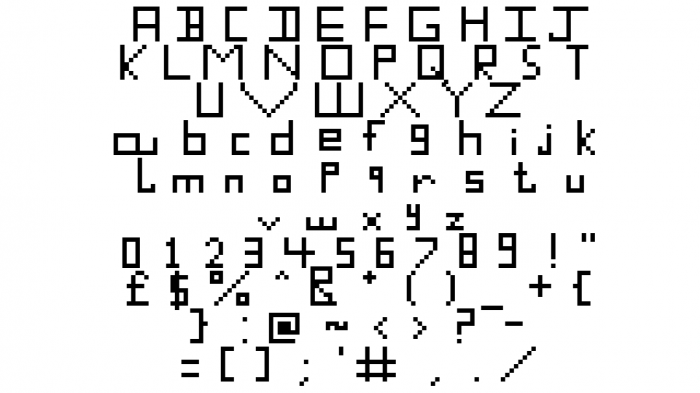
• Ever heard of square fonts? Now you can! I used just square blocks. It's like School Rounded, but with square bricks. I did try to make Outline, but it failed.
I like these pixel letters
I really like this font 100 percent ? looks like you worked really hard on it
I did actually work hard on it.
I used this s a work today and every thought it was a good font ,will use it again
Do you want me to add any characters or no characters?
I think you have done lots already and it is finished ☺️Thankyou for making it
I've done ABCDEFGHIJKLMNOPQRSTUVWXYZabcdefghijklmnopqrstuvwxyz0123456789.,' ''(plus some other speech marks)?!@_*#$%&()+-/:;<=>[ (plus a backwards slash) ]^ (plus a grave accent) {l}~ (pilcrow) AE x ae (divide) OE oe
Wow ! You sure did make alot for this font ! It must have taken you a long time
Mabye, I could add Russian letters!
Here are your new characters: ёабвгдежзийклмнопрстуфхцчшщъыьэюяЁАБВГДЕЖЗИЙКЛМНОПРСТУФХЦЧШЩЪЫЬЭЮЯ
I've updated it!
I've also added some diratics marks, so you can make your own diratics letters!
With the diratics marks, you can make these letters yourself:àáâãäåçèéêëìíîïñóôõöùúûü
ÀÁÂÃÄÅÇÈÉÊËÌÍÎÏÑÓÔÕÖÙÚÛÜ
A preview of the Squares font.
This new one looks good